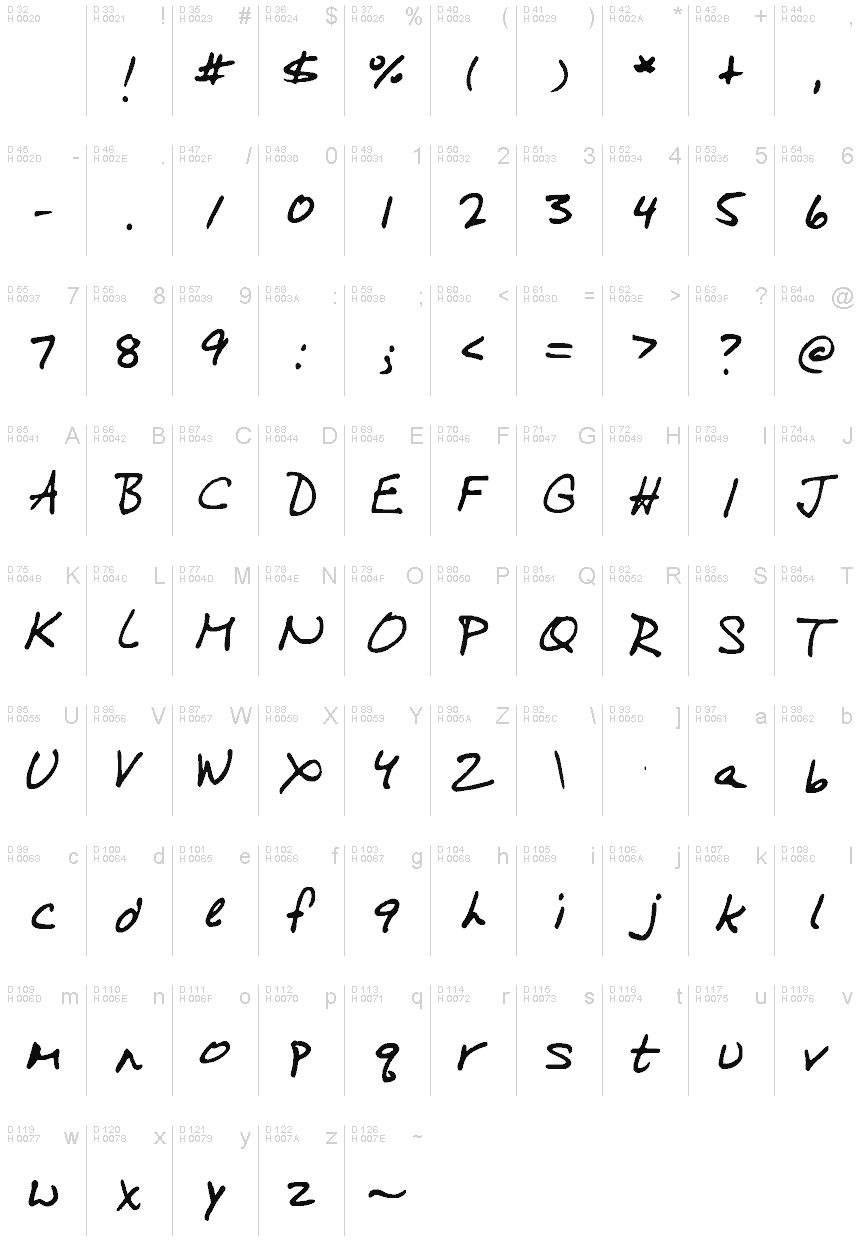
On_a_Run
"On a Run" is a captivating handwritten font that exudes a sense of spontaneity and energy. Its bold, expressive strokes and natural flow create a vibrant, organic aesthetic.
The font's distinctive character makes it well-suited for a variety of design applications, from eye-catching headlines and logos to personalized stationery and invitations. Its versatility allows it to seamlessly transition between formal and casual settings, adding a touch of authenticity and personality to any project.
With its unique flair and impactful visual presence, "On a Run" is a font that commands attention and leaves a lasting impression.